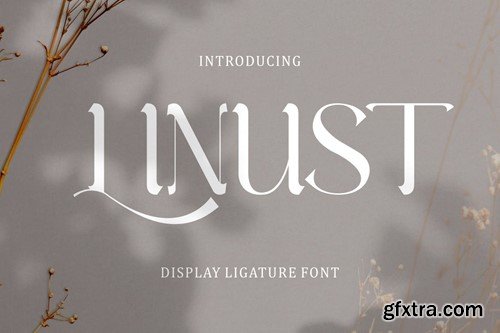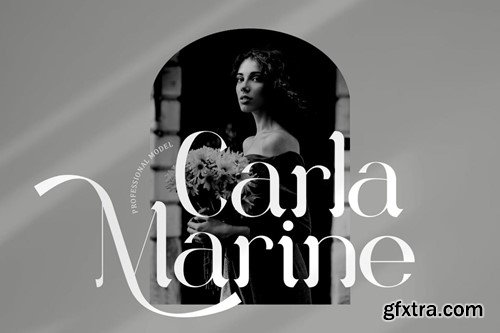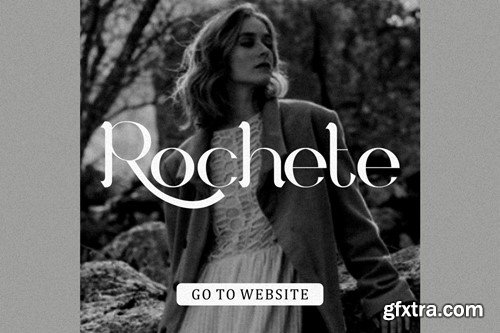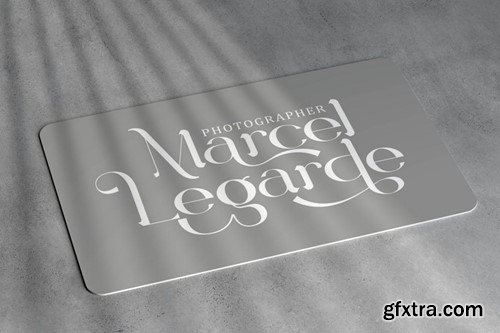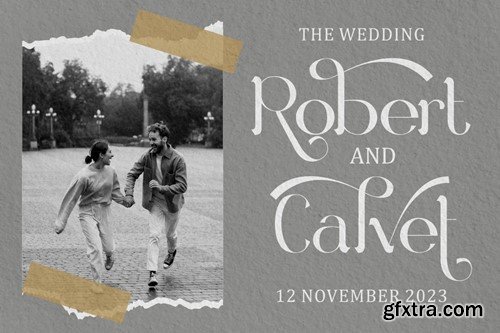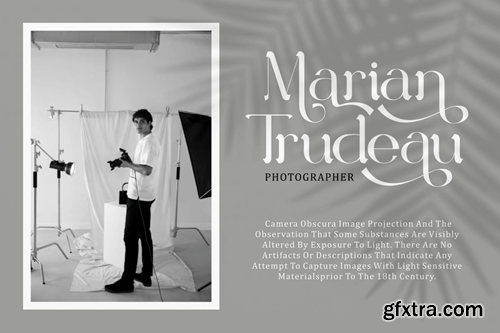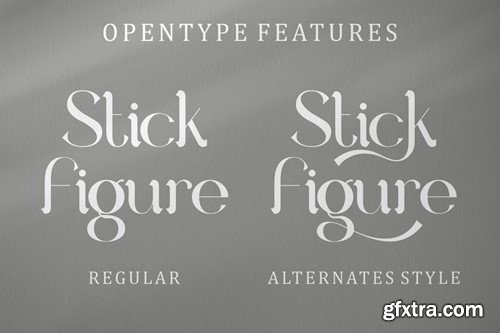
Linust - Display Modern Font is a contemporary typeface that effortlessly combines modern elegance with a wide range of alternative characters. The font exudes an air of luxury and sophistication, making it an ideal choice for various design projects. Whether you're creating a logo, poster, quote, invitation, greeting card, business branding, product labels, or anything else, Linust adds a touch of refinement to your work. This font offers a multitude of alternative characters, allowing for extensive design versatility. The sleek and modern design aesthetics of Linust make it suitable for a wide array of applications, adding a sense of class and style to your creative projects. With its luxurious and elegant style, Linust is a versatile font that can elevate your designs and make them truly stand out. In Package : Feature : Note : The preview mock-up, element, shadow, image or graphic stock is not included in the download file. It’s only for presentation purpose. Thank you